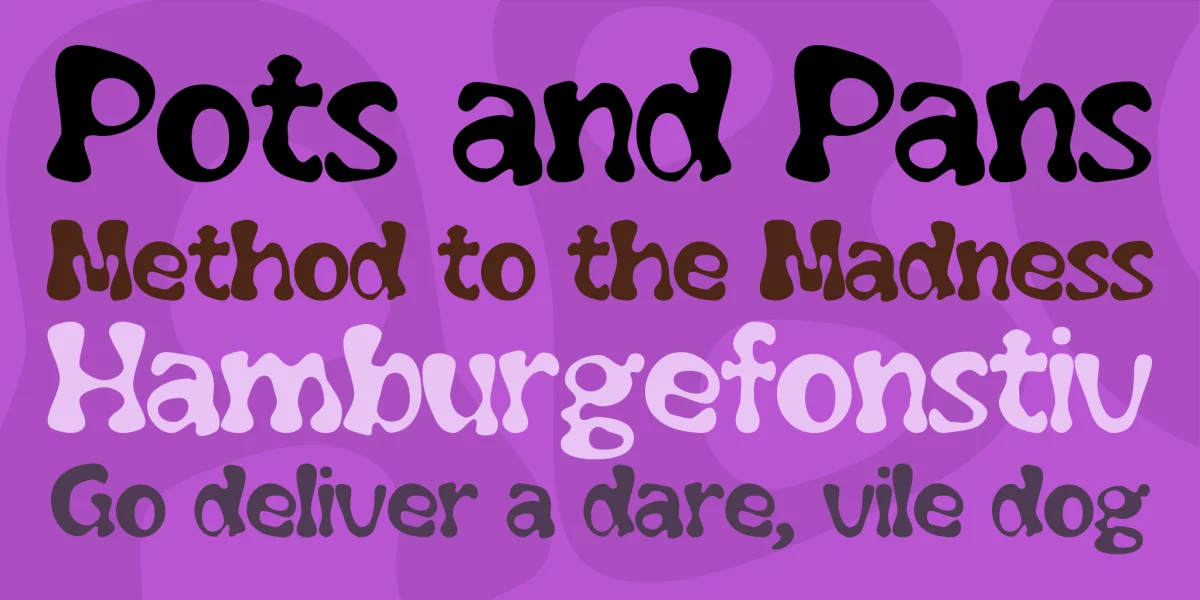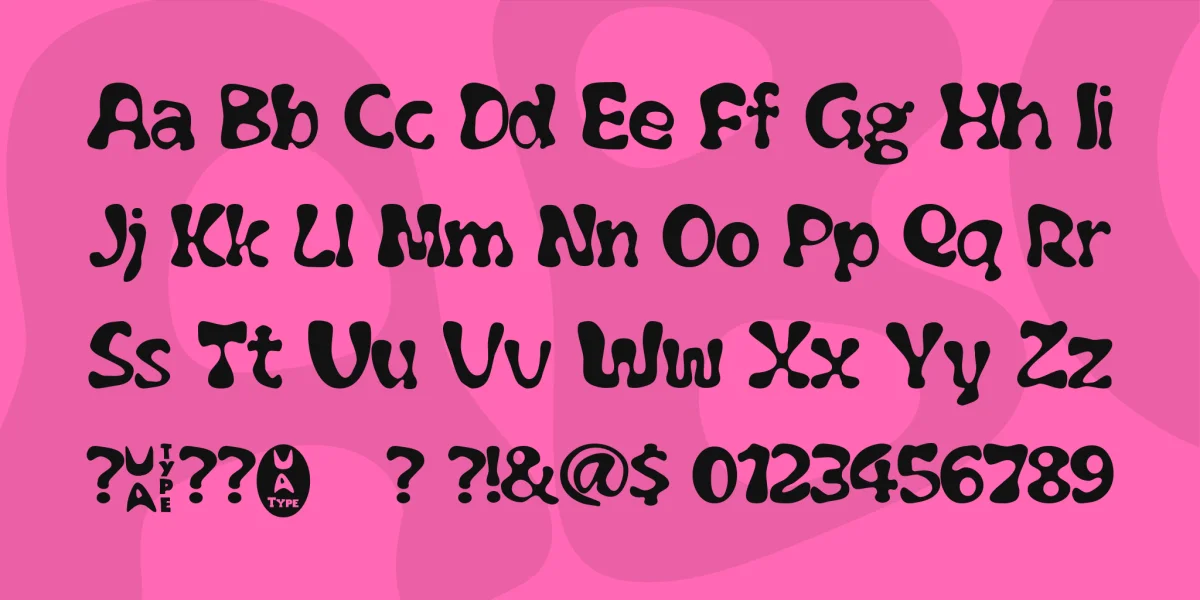
This version includes upper and lowercase letters, punctuation, and many international characters. I also included some UA Type dingbats (just to amuse myself, and so you don't get those annoying boxes when you type something that isn't in the font).
Remember the "Absent-Minded-Professor" from Disney? He accidently created this rubbery substance that bounced higher and higher. He used it to make things fly. Well, I accidently discovered the technique for making this font. And it has that rubbery - stretchy look to it.